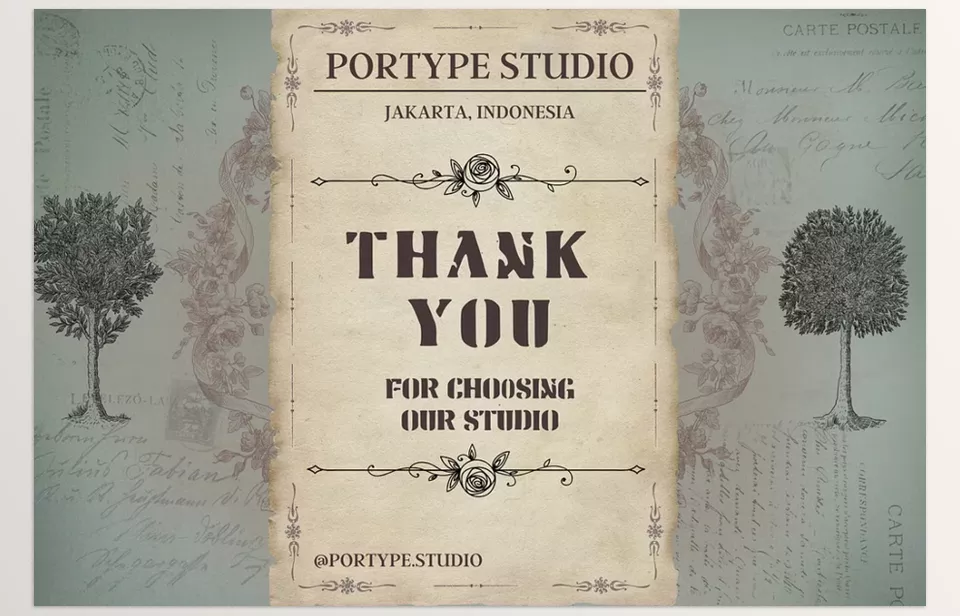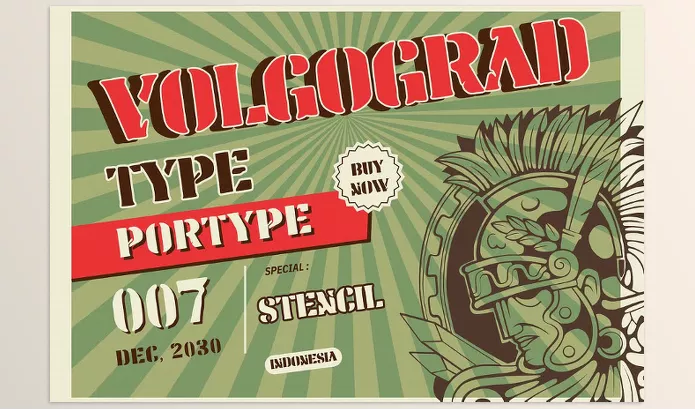
This bold stencil font is dedicated to Volgograd Type Font and is developed from the technological theme and style of military engineering. It has precise and industrial cuts, making the letterforms bold and the texture rough. It goes well with tactical branding design, military graphics, and also works perfectly for industry projects.
portype – Volgograd Type Font Features
• Military Inspiration: Based on the precision and strength of war machinery.
• Bold Design: Industrial cut letterforms provide a powerful presence.
• Rugged Texture: Distressed look akin to typography associated with battles.
• Versatile Use: Tactical branding, military posters, and war-themed games.
• Authentic Appearance: Mimics markings found on armoured vehicles and ammunition crates.
• Attention-grabbing: Ensures your message is delivered with authority and power and drives people’s focus when needed.
Preview Volgograd Type Font
Image 1: Bold and Industrial: Turn pictures into posters and showcase the strength of this military font like no other.
Volgograd Type Font - Bold and Industrial: Turn pictures into posters and showcase the strength of this military font like no other.
Image 2: Create distressed graphics that capture the focus they deserve.
Volgograd Type Font - Create distressed graphics that capture the focus they deserve.